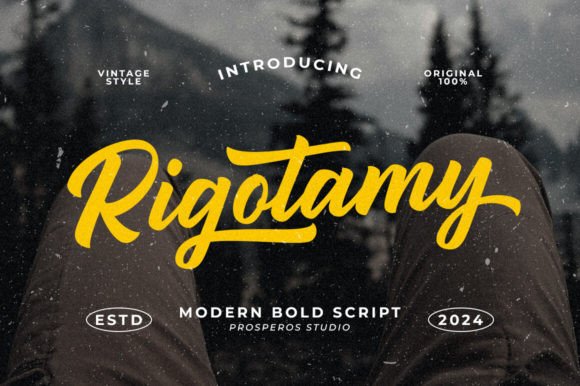
Rigotamy Font: Elevate Your Creative Projects with Versatility and Style
In the realm of typography, a font can make all the difference in the success of a creative project. It has the power to evoke emotions, convey messages, and add a touch of personality to any design. This is where Rigotamy Font comes into play – a highly versatile script font designed to amplify the creative impact of your projects. Whether you’re a seasoned designer or a DIY enthusiast, Rigotamy is poised to become your go-to typeface for a wide array of applications.
Unleash Your Creativity with Rigotamy
Rigotamy is not just a font; it’s a creative tool that opens up a world of possibilities. Its elegant and expressive script style makes it a perfect fit for projects that demand a touch of sophistication and flair. From captivating logo designs to expressive printed quotes, irresistible invitations, personalized cards, distinctive product packaging, dramatic headers, immaculate letterhead, eye-grabbing poster designs, attention-demanding apparel design, innovative labels, and more, Rigotamy is the versatile solution you’ve been looking for.
Key Features of Rigotamy Font
- Highly Versatile: Suitable for a wide range of creative projects, ensuring that your designs stand out.
- Elegant Script Style: Adds a touch of sophistication and elegance to any design.
- Multilingual Support: Enables your creative expression to transcend language barriers.
- Robust Symbol and Punctuation Set: Includes a diverse range of symbols, punctuations, and numbers.
Multilingual Support and Compatibility
Rigotamy in Action: Design Applications
Rigotamy’s versatility shines through its applicability in various design scenarios:
- Logo Designs: Create memorable brand identities with Rigotamy’s elegant script.
- Printed Quotes: Add a touch of class to inspirational and thought-provoking quotes.
- Invitations and Cards: Personalize events and messages with stylish and heartfelt invitations and cards.
- Product Packaging: Stand out on store shelves with distinctive and attractive packaging designs.
- Headers and Letterhead: Elevate your professional correspondence with elegant headers and letterhead.
- Poster Designs: Capture attention with dramatic and visually appealing posters.
- Apparel Design: Create eye-grabbing clothing and accessories with Rigotamy’s unique style.
- Labels: Add a professional touch to your products with innovative and stylish labels.
Tell Your Story with Rigotamy
Using Rigotamy, you’re not just designing; you’re storytelling. Every project is an opportunity to convey a message, evoke an emotion, or express an idea. With Rigotamy, you have the tools to infuse your energy and creativity into your projects. Don’t hesitate to experiment and push the boundaries of what’s possible. The experience of working with Rigotamy is designed to be as enjoyable as the joy we had crafting it.
Rigotamy Font is more than just a typeface; it’s a gateway to creative expression and limitless possibilities. Its versatility, elegance, and compatibility make it an indispensable tool for designers and creatives looking to make their mark. Whether you’re embarking on a new project or looking to refresh your brand’s identity, Rigotamy invites you to explore its potential and discover new ways to tell your story.